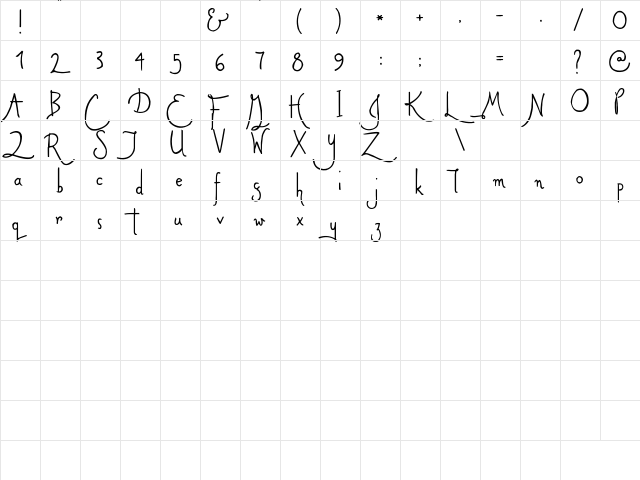
2Peas Masterpiece 2Peas Masterpiece Font Preview
2Peas Masterpiece 2Peas Masterpiece
2Peas Masterpiece 2Peas Masterpiece Font Details
| Style | 2Peas Masterpiece |
| Foundry | High-Logic |
| Designer | High-Logic - Erwin Denissen 1999 |
Design Context for 2Peas Masterpiece Typeface
2Peas Masterpiece is a composed and adaptable typeface that performs quietly and consistently across a wide range of design contexts.